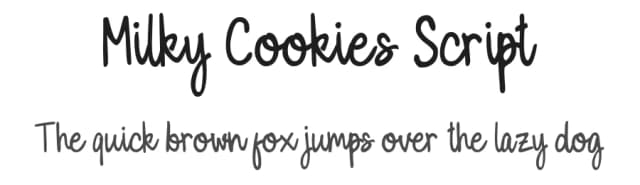
Milky Cookies by Hanaksara Studio features smooth, rounded letterforms that feel genuinely handwritten yet beautifully refined. The soft curves and generous spacing create nostalgic warmth that works across display uses and substantial body text applications without sacrificing legibility or distinctive character.
This script excels on personalized wedding invitation suites where elegance and intimacy naturally intersect. Food bloggers, pastry shops, and small cafΓ©s reach for it when designing menu covers, printed labels, and in-house signage. It's equally strong for packaging custom bakery boxes, creating vintage-style greeting cards, and building indie product branding for Etsy and Shopify stores. The handwriting variant delivers organic, sketch-like texture ideal for contemporary designs, while the all-capitals option provides clean, structured letterforms for headlines, logos, and brand lockups that need real strength without harsh edges.
Milky Cookies feels most at home in projects that value character over slickness: artisanal packaging, personal stationery suites, craft-focused identity systems, and brands built on genuine approachability rather than corporate formality. It's ideal for designers and small business owners who want their work to feel made with care and intention. Grab it on Creative Fabrica and give your next project that handcrafted warmth and personality.
- Elegant, Flowing, Milky Cookies Script
Milky Cookies Font is a script font that shines as a display or heading face. Pair it with a clean sans-serif or serif font for body text β the contrast creates a clear hierarchy while the two styles stay balanced and easy to read.